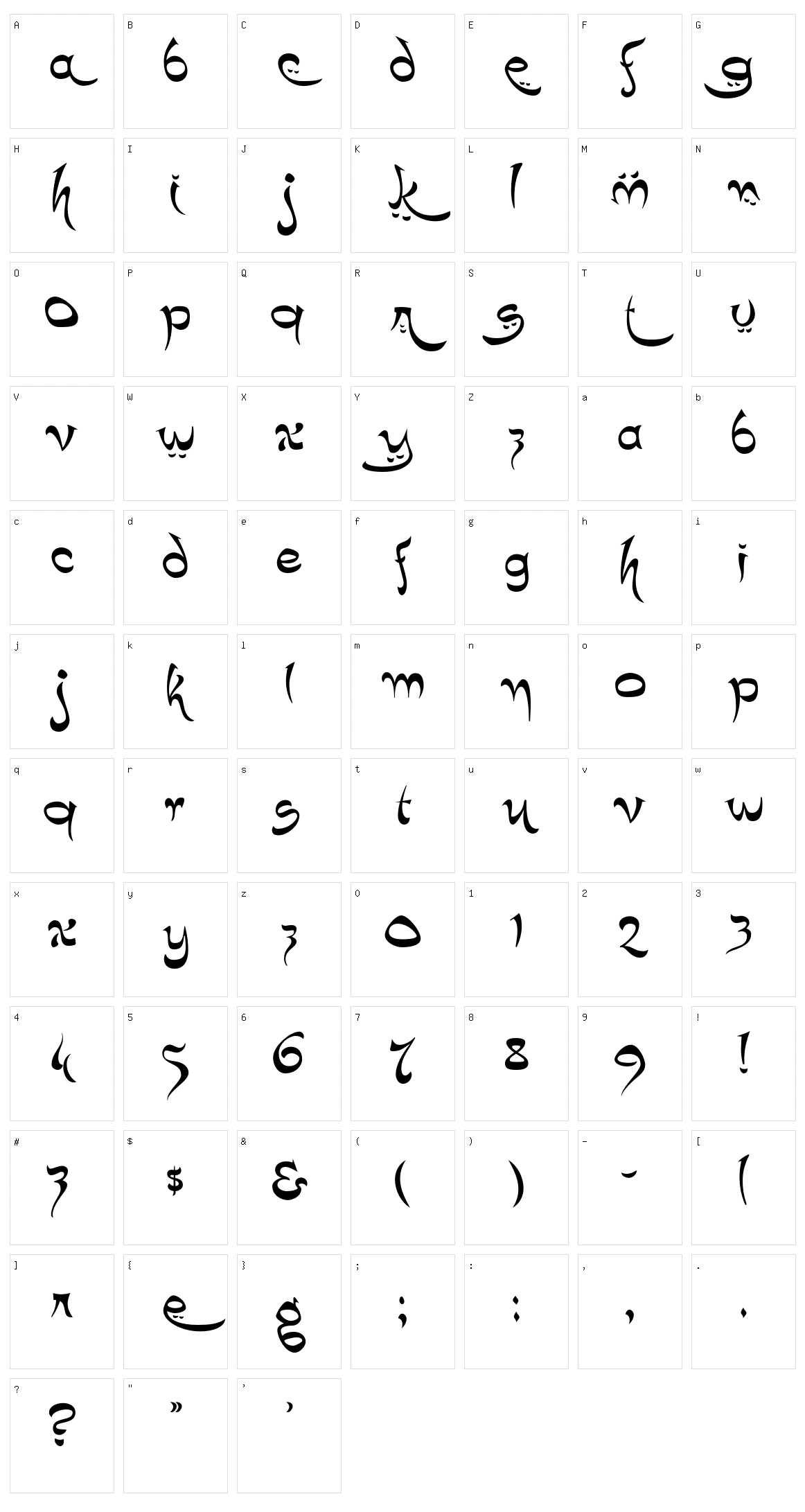
K22 Timbuctu is based on Timbuctu from page 95 of Special Effects and
Topical Alphabets: 100 Complete Fonts by Dan X. Solo (Dover Publications,
1978)
The letters B/b, D/d, H/h, J/j, P/p, Q/q, V/v, X/x and Z/z have similar
characters. All the rest have different characters for the lowercase and
uppercase. There is a third set of letters as follows:
alternate E in { key
alternate G in } key
alternate L in [ key
alternate R in ] key
There is also an alternate for 3 in # key (or Shift 3) which looks like the
Z/z character.
All the characters in the font came from the Timbuctu page except for letter
'w' which is my modification of the character in 'W'.